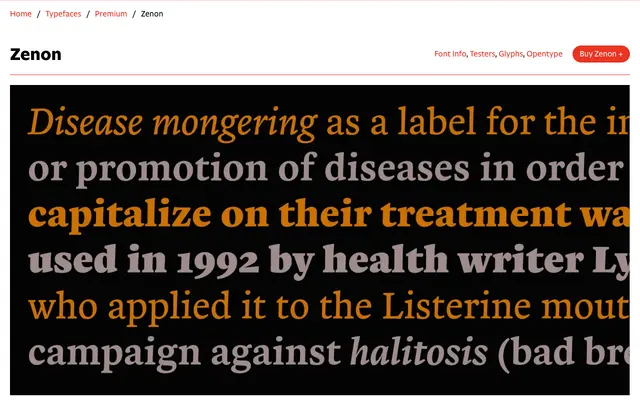
Zenon
CAST · Riccardo Olocco · 2013
A book typeface by Riccardo Olocco rooted in Renaissance proportions, with letterforms derived from 16th-century masters and a global 2-degree slope applied across all glyphs for subtle organic rhythm.
Developed from close analysis of Renaissance typography and Robert Granjon's italic models, Zenon moderates its historical sources towards even modern letter widths while retaining the warmth and calligraphic logic of its origins. The italic is a narrow chancery cut sloped at 9 degrees, drawn independently from the roman rather than mechanically obliqued, with deep junctions that give it a lively, spiky character. Eight weights from Book to Black, each with a matching italic, are available as static fonts and variable font files, with variable contrast that shifts from low in lighter weights to pronounced in heavier ones.
Zenon draws from Renaissance proportions and chancery italic traditions, with letterforms developed from analysis of 16th-century masterpieces including Robert Granjon's italics, placing it firmly in the humanist/Renaissance serif tradition.